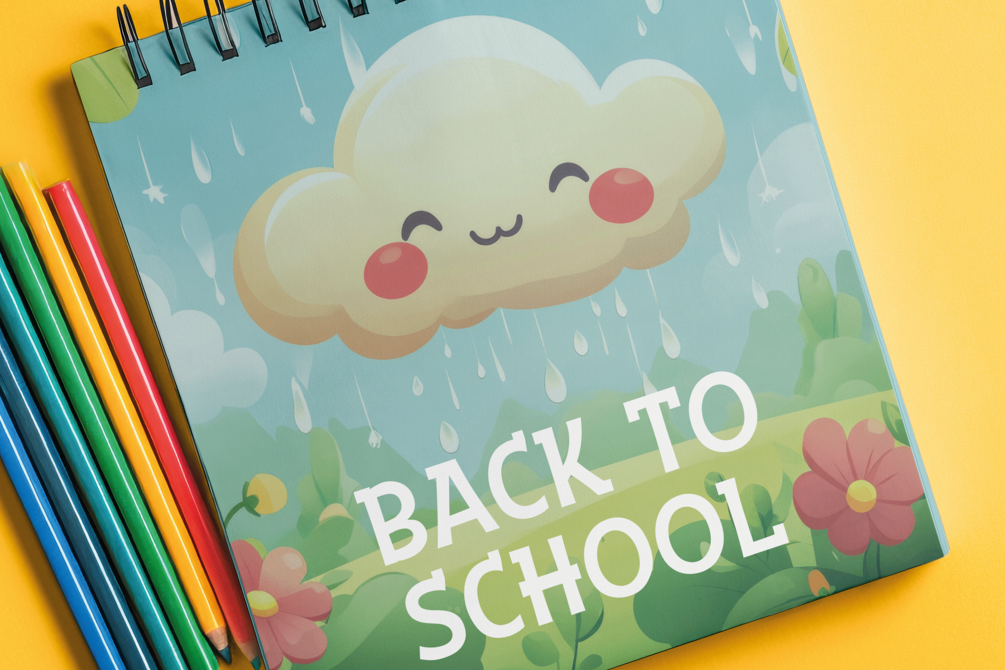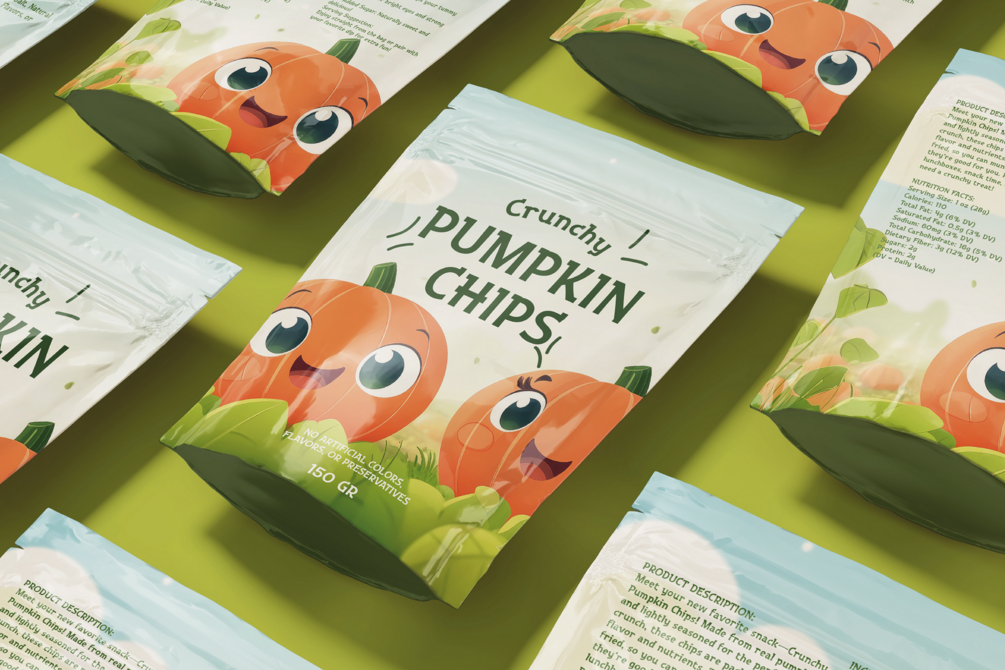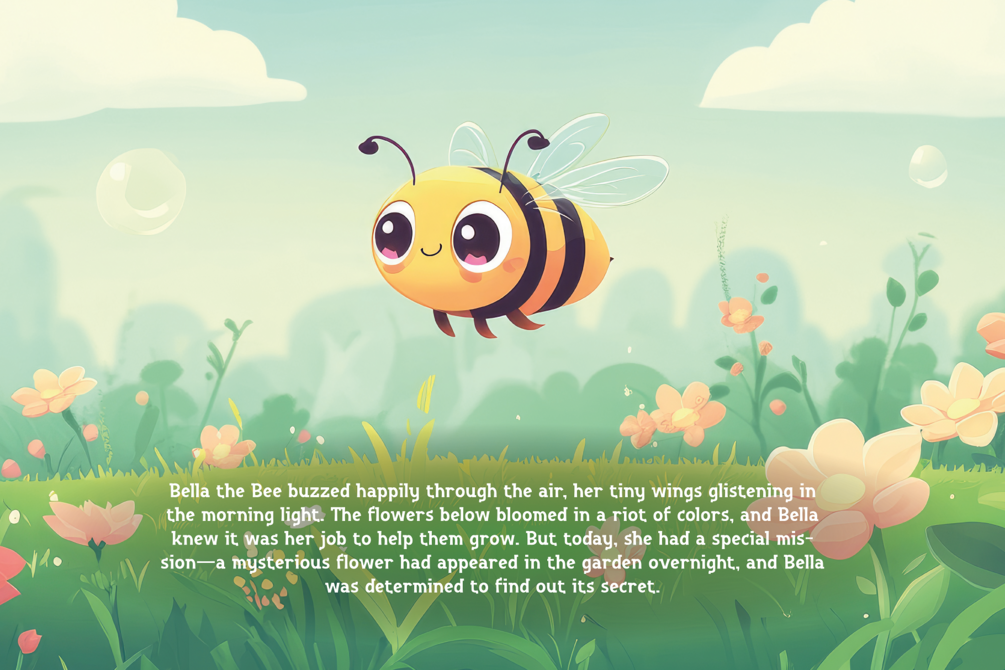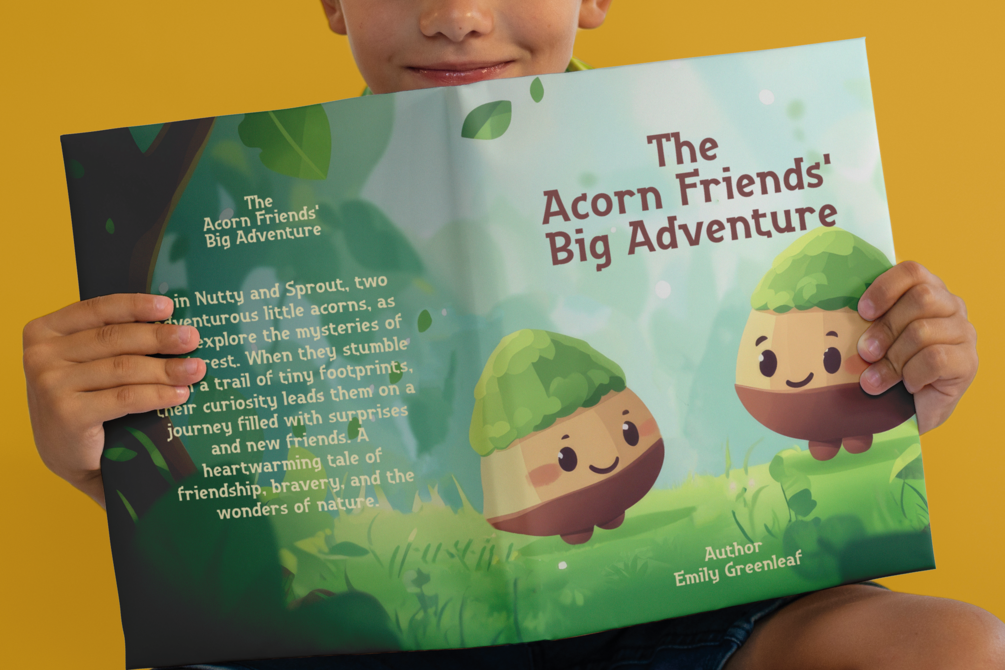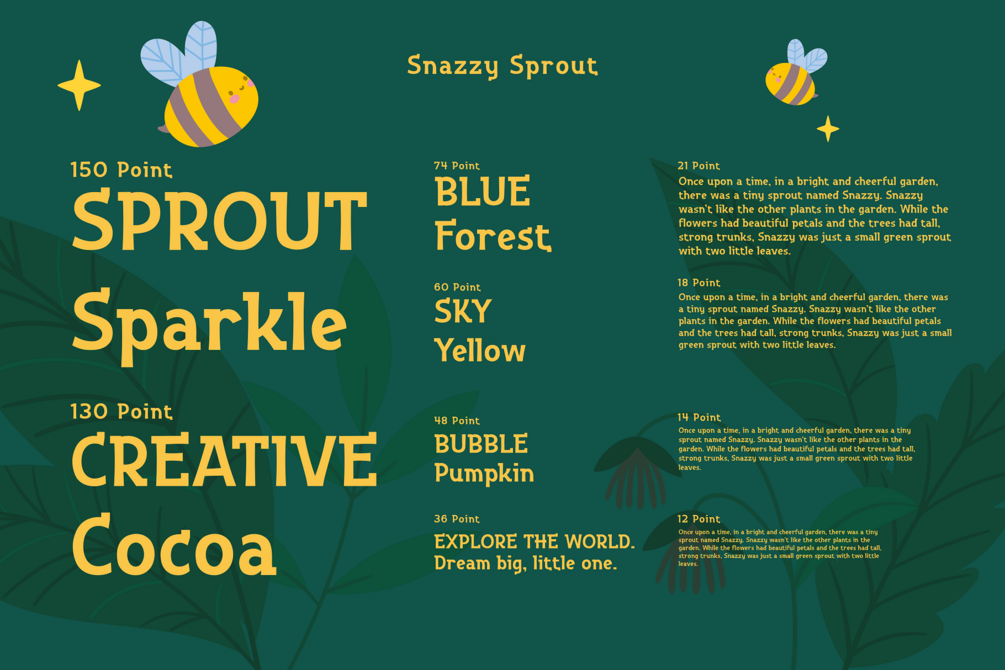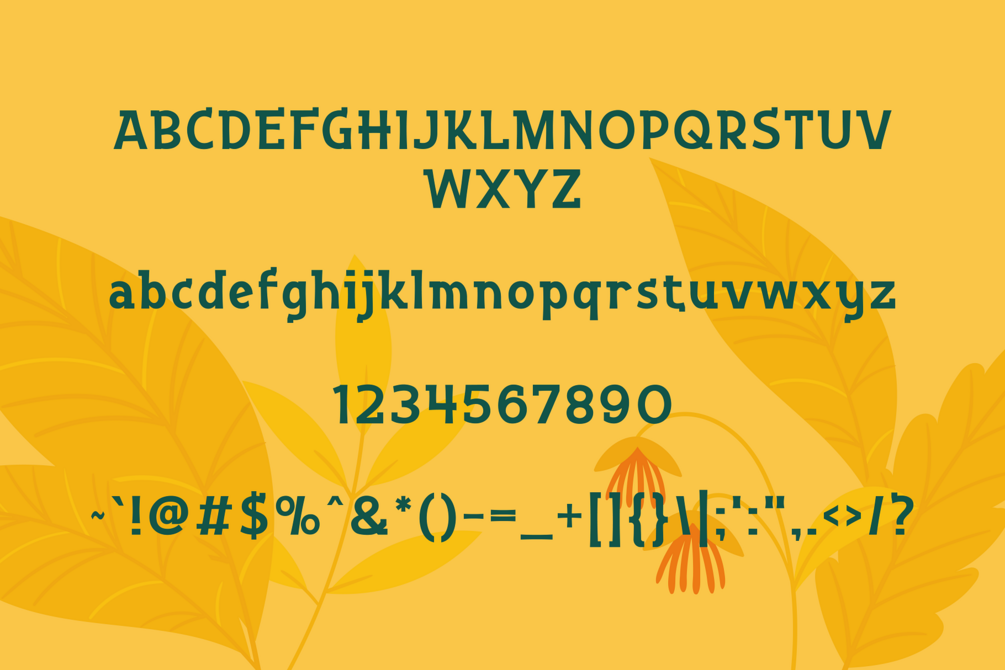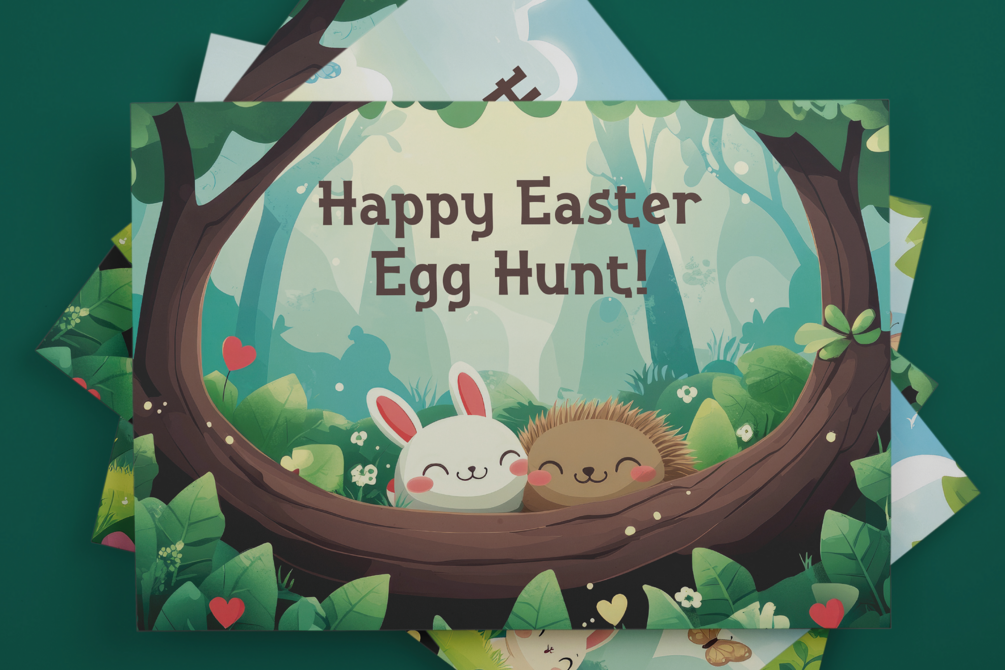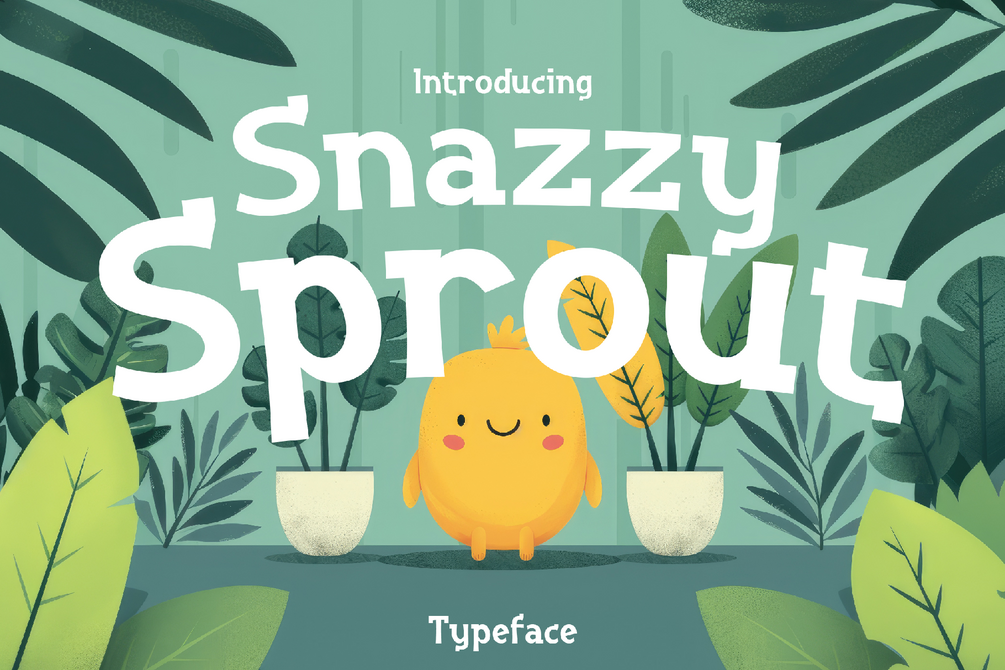
Snazzzy Sprout - Adorable Typeface for Kids
Get ready to meet Snazzy Sprout, the cutest typeface that’s bursting with joy and creativity! Designed with kids, teachers, and schools in mind, this charming font is perfect for bringing a playful touch to posters, classroom projects, and anything that needs a sprinkle of cuteness.
With its bubbly, delightful characters, Snazzy Sprout instantly brightens up any design, making it the go-to choice for creating fun and engaging materials. Whether you’re a teacher crafting classroom displays, a parent making birthday invitations, or a designer working on children’s products, this font adds that perfect dash of whimsy and warmth.
Let Snazzy Sprout bring smiles to your designs and make every project as fun and lovable as the little ones it’s made for!